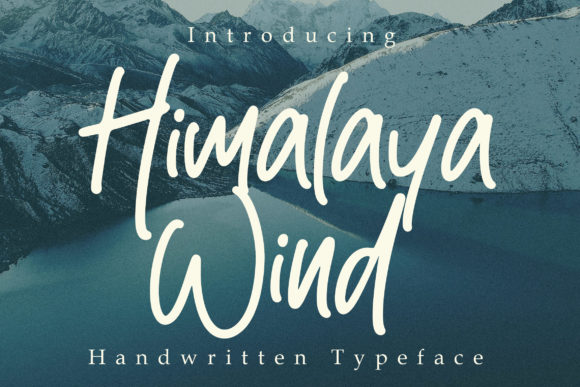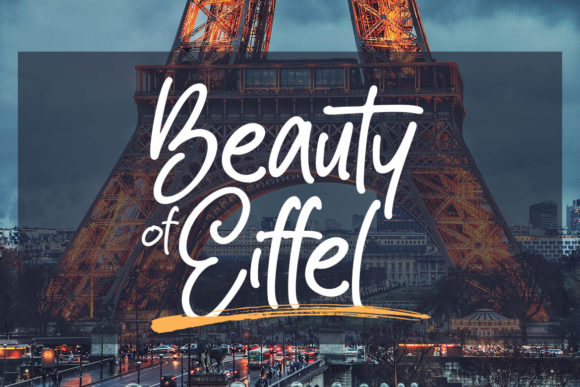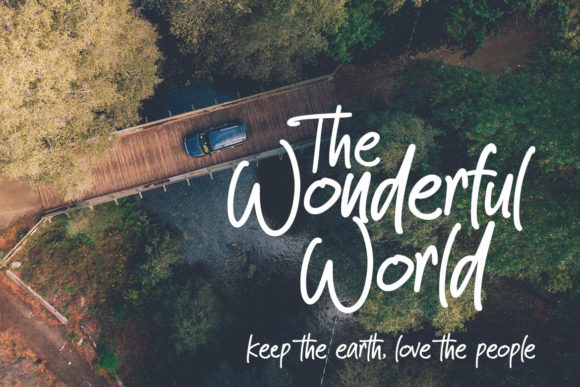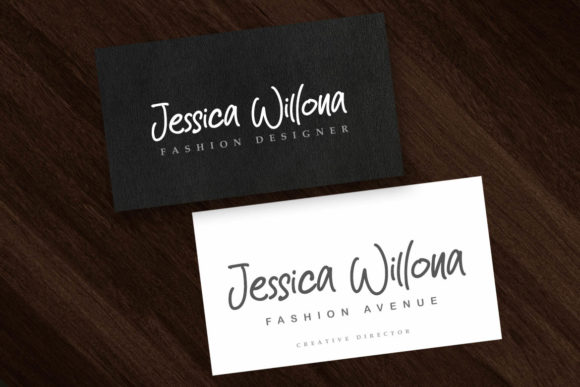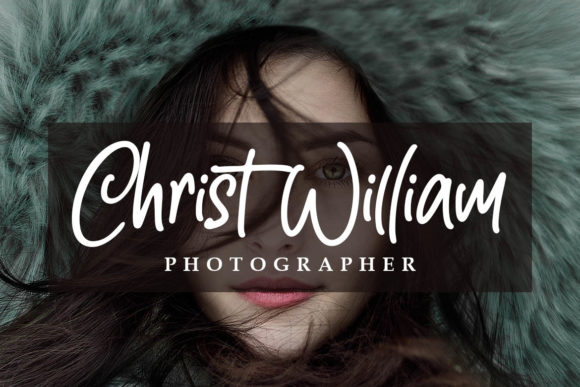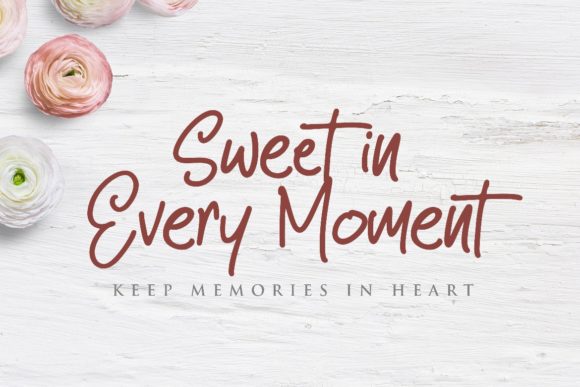
Himalaya Wind Font
About Himalaya Wind Font
Himalaya Wind feels bold and adventurous and is a great addition to anyone’s craft library due to its authentic simplicity.